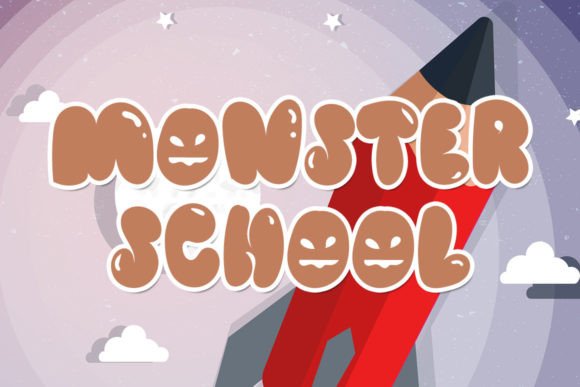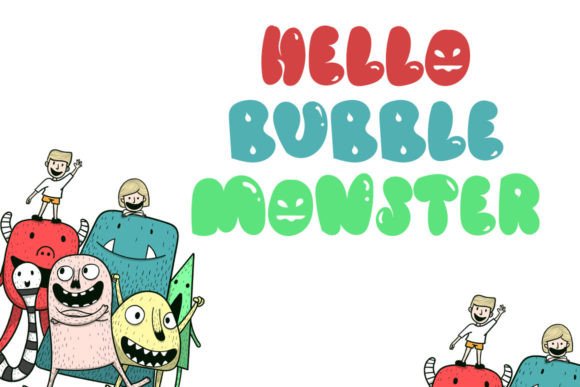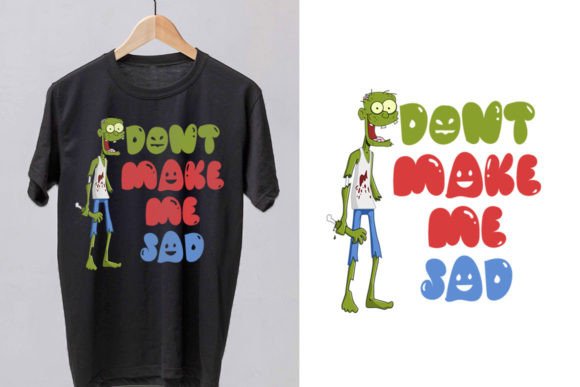
Unleash the Fun with Alien Spooky Font: A Whimsical Addition to Your Font Library
Are you tired of using the same old fonts in your designs? Do you want to add a touch of whimsy and spookiness to your creations? Look no further than the Alien Spooky Font! This fun and bubbly display font is perfect for designers and crafters who want to add a little extra something to their work. In this article, we’ll dive into the features and benefits of Alien Spooky Font, and explore how it can enhance your designs.
What is Alien Spooky Font?
Alien Spooky Font is a display font that is sure to grab attention. With its whimsical and quirky design, this font is perfect for creating eye-catching headlines, titles, and graphics. The font features a unique blend of playful and spooky elements, making it ideal for Halloween-themed designs, children’s party invitations, and other fun and festive projects.
Key Features of Alien Spooky Font
- Fun and Bubbly Design: Alien Spooky Font features a fun and bubbly design that is sure to add a touch of whimsy to your creations.
- Whimsical and Quirky: The font’s whimsical and quirky design makes it perfect for creating eye-catching headlines and titles.
- Spooky Elements: The font features spooky elements that add a touch of Halloween fun to your designs.
- Display Font: Alien Spooky Font is a display font, making it perfect for use in headlines, titles, and other large-format text.
Benefits of Using Alien Spooky Font
So why should you add Alien Spooky Font to your font library? Here are just a few benefits of using this fun and versatile font:
- Adds a Touch of Whimsy: Alien Spooky Font adds a touch of whimsy and playfulness to your designs, making them stand out from the crowd.
- Perfect for Halloween-themed Designs: The font’s spooky elements make it perfect for Halloween-themed designs, such as party invitations, decorations, and more.
- Great for Children’s Projects: The font’s playful design makes it perfect for children’s projects, such as party invitations, activity sheets, and more.
How to Use Alien Spooky Font
Using Alien Spooky Font is easy! Here are a few tips for getting started:
- Use it as a Display Font: Alien Spooky Font is perfect for use as a display font in headlines, titles, and other large-format text.
- Experiment with Different Sizes: The font looks great in a variety of sizes, so don’t be afraid to experiment and find the perfect size for your design.
- Pair it with Other Fonts: Alien Spooky Font pairs well with a variety of other fonts, so try pairing it with some of your favorite fonts to create a unique look.
| Font Name | Alien Spooky Font |
| Author | Mr.Soon Design |
Alien Spooky Font is a fun and versatile font that is sure to add a touch of whimsy and spookiness to your designs. With its unique blend of playful and spooky elements, this font is perfect for designers and crafters who want to create eye-catching headlines, titles, and graphics. Whether you’re working on a Halloween-themed project or just want to add a little extra something to your designs, Alien Spooky Font is a great choice. So why wait? Download Alien Spooky Font today and start creating!